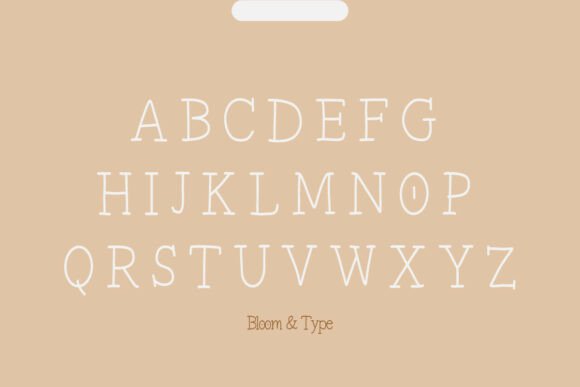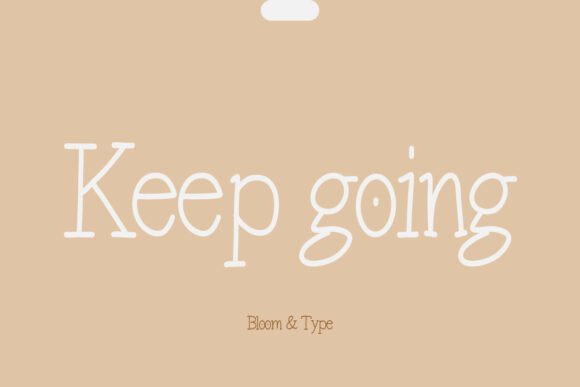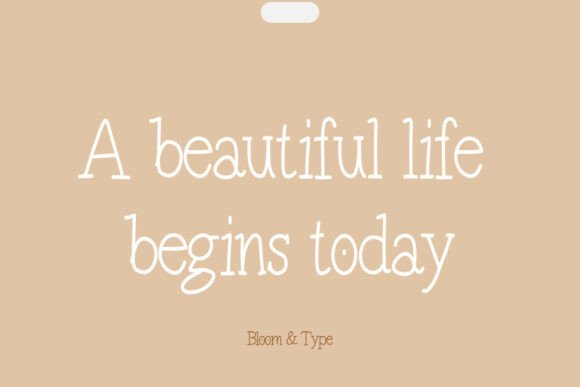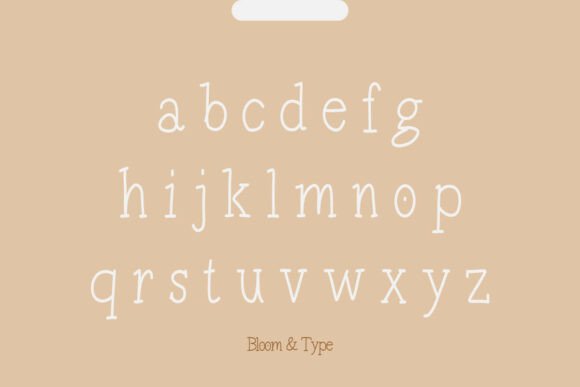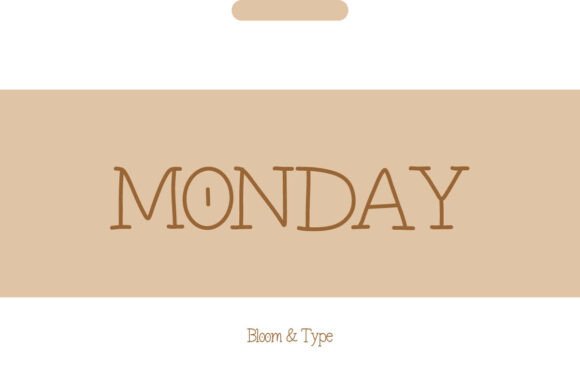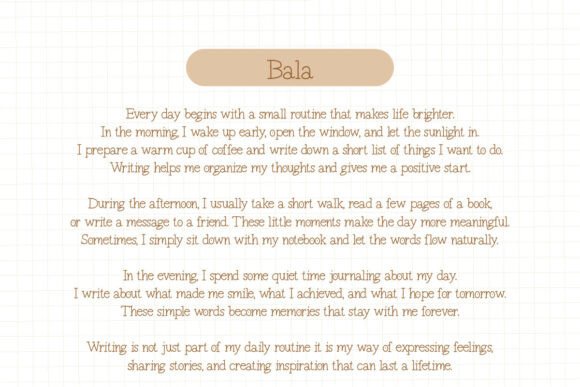
Discover the Gentle Beauty of Bala Font
There’s something special about sitting down with a blank sheet of paper and a pen, letting your thoughts flow onto the page in a dance of ink and imagination. It’s a moment of pure creativity, where the world seems to slow down and all that matters is the gentle scratch of the pen on paper. This is the essence of Bala Font – a clean and minimalist handwritten font that captures the soft, elegant touch of natural handwriting.
Designed to bring a sense of calm and modernity to any design, Bala Font is the perfect choice for designers looking to add a refined and stylish handwritten feel to their projects. With its thin strokes and slightly imperfect lines, this font is highly readable and versatile, making it ideal for quotes, branding, and creative layouts. Whether you’re working on a personal or professional project, Bala Font is a valuable addition to your design toolkit.
Bala Font Key Features
- Unique Characteristics: Bala Font features a unique blend of traditional and modern design elements, with intricate details and ornaments that set it apart from other fonts.
- Font Styles: Bala Font is available in multiple styles, including Regular, Italic, Bold, and Bold Italic, providing users with a range of options to suit their design needs.
- Legibility and Readability: The font is designed to be highly legible and readable, even at small sizes, making it an excellent choice for body text, headings, and titles.
Bala Font Review
I recently had the chance to work with the Bala font, and I must say it’s an interesting addition to any design project. ✨ One thing that immediately caught my attention was its modern and sleek aesthetic, making it perfect for any contemporary design.
The Bala font has a clean and minimalistic design that works well for headlines and titles. ✨ It’s also highly legible, even at smaller font sizes, which is a plus for designers who want to ensure their text is easily readable.
However, I did encounter a few limitations with the Bala font. ⚠️ Firstly, it lacks a true italic or oblique version, which can make it difficult to create emphasis or add a touch of elegance to your design.
Additionally, the Bala font may not be the best choice for longer blocks of text, as it can start to feel a bit monotonous and lacking in character. ⚠️ This is particularly true for designers who prefer a more varied font to keep their text interesting.
- Modern and sleek aesthetic
- Highly legible even at smaller font sizes
- Clean and minimalistic design
- Lacks true italic or oblique version
- May not be suitable for longer blocks of text
Overall, the Bala font is a solid choice for designers who want a modern and sleek look for their project. While it has its limitations, it’s a great addition to any design arsenal.
Tips for Getting the Most Out of Bala Font
- Combine the Bala Font with other fonts for a unique and creative look.
- Use the Bala Font for headings and titles to create a clear visual hierarchy.
Alternatives to Bala Font
The Inter Font is a modern sans-serif typeface designed by Rasmus Andersson. It is a versatile font suitable for body text, headings, and titles. Inter Font is ideal for digital products, websites, and mobile apps. It is similar to Bala Font in its clean and minimalist design, but it has a slightly more geometric feel.